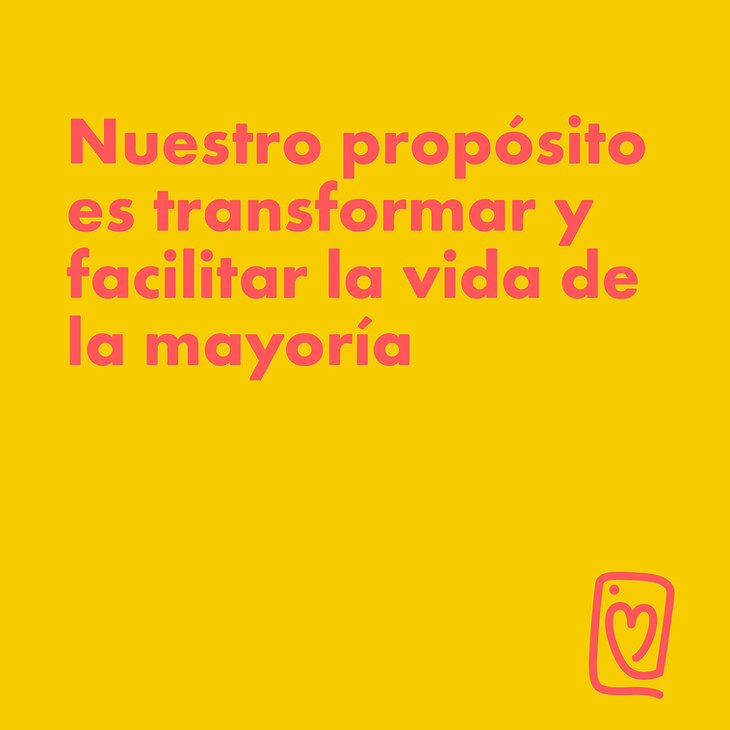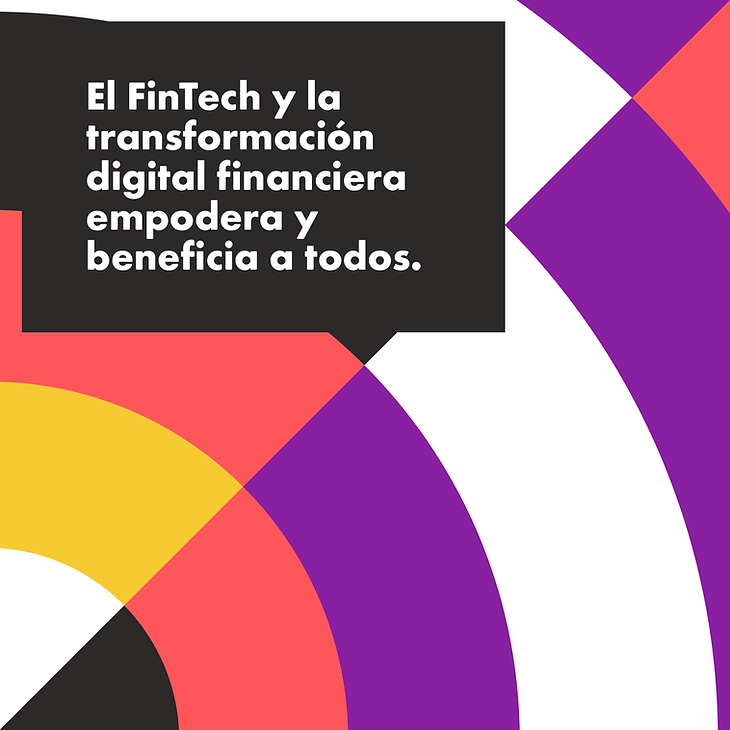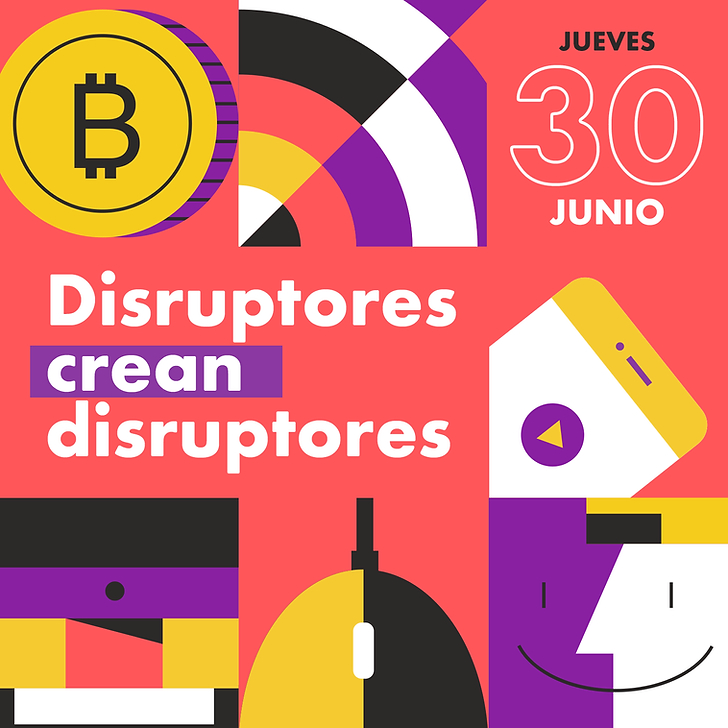
TEIP APP
Teip was one of the first FinTech apps launched in El Salvador, created to simplify the way people send, receive, and manage payments directly from their smartphones.
The platform was designed primarily for younger audiences and early adopters who were more open to new digital financial experiences.
I worked on the brand identity development as well as early web and app explorations. The concept behind the visual system came from the idea of “skipping steps”, making everyday transactions feel faster, smoother, and more accessible. This idea became the foundation for the curved graphic element seen throughout the brand, symbolizing movement, flow, and the ease of navigating financial interactions.
The identity combines bold color palettes, oversized typography, graphic compositions, and energetic layouts to create a vibrant and approachable visual language. The system was designed to feel modern, optimistic, and human-centered while helping position Teip as an innovative and accessible financial platform within the Salvadoran market.
During the early stages of the project, the platform was originally named Servo before later evolving into Teip, which is why some of the explorations and applications feature the original branding.